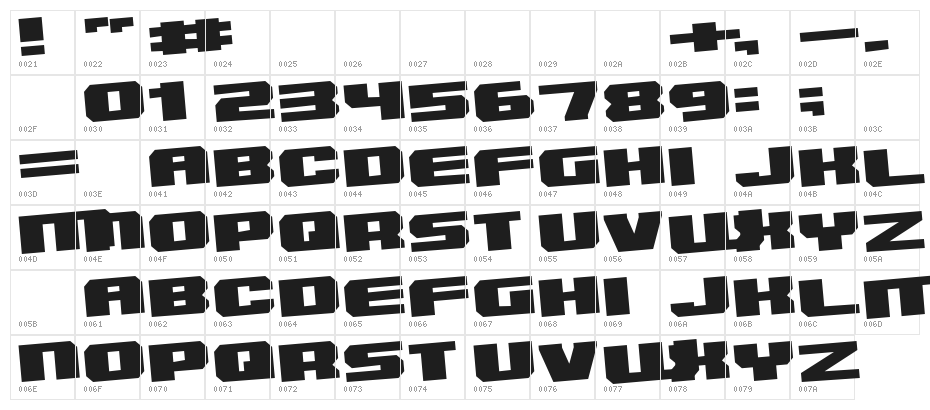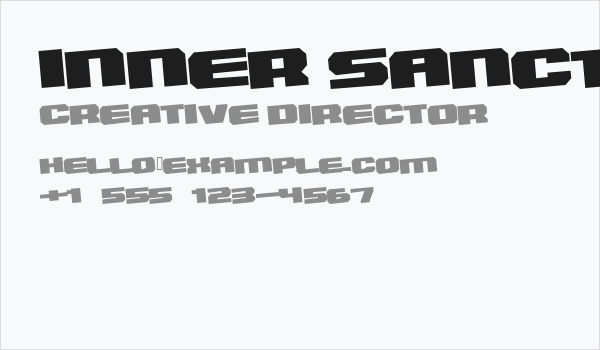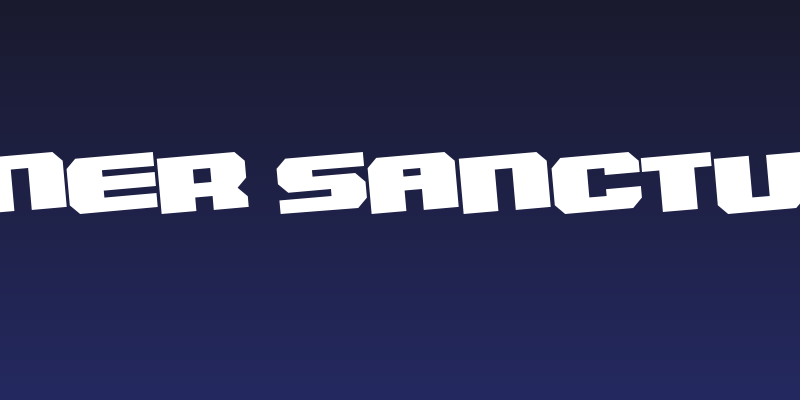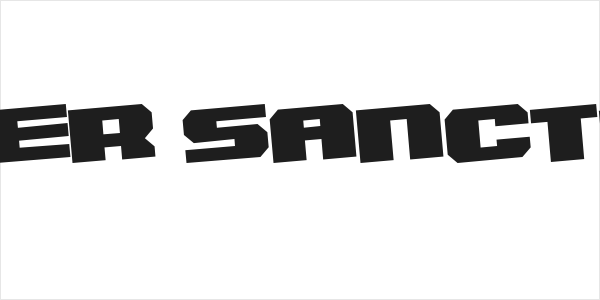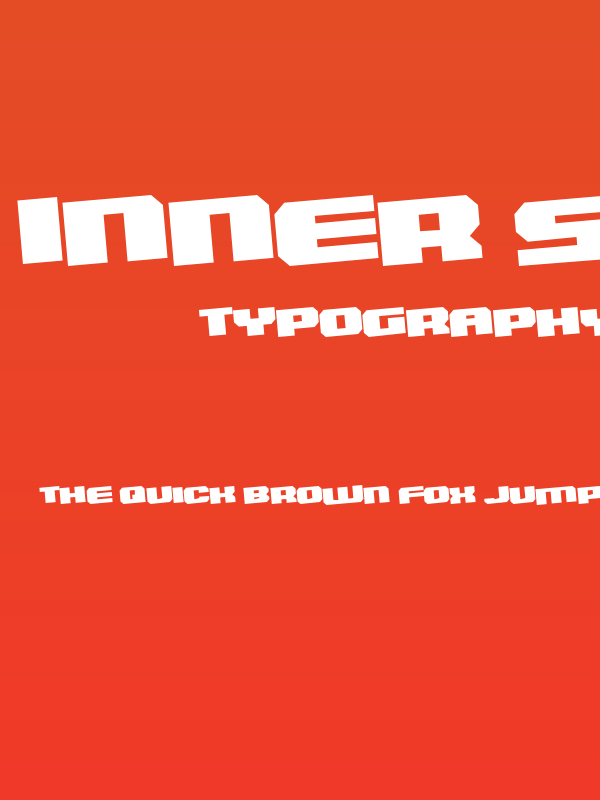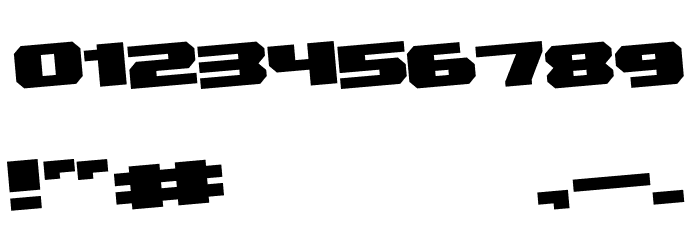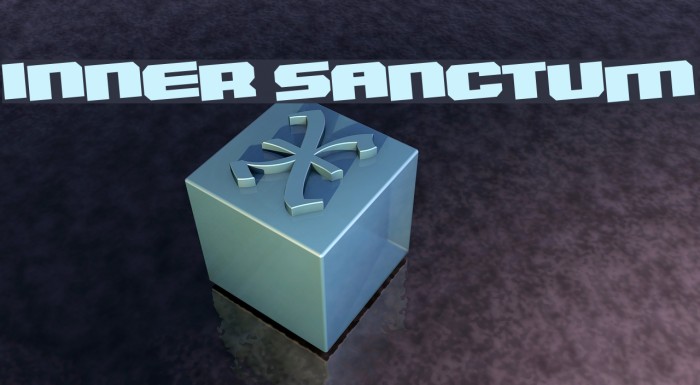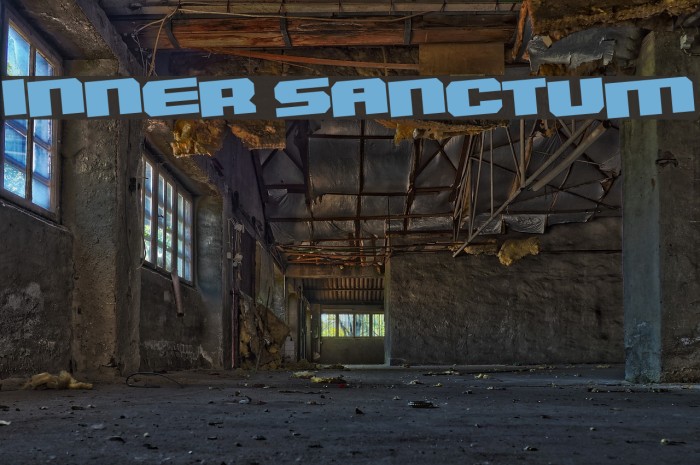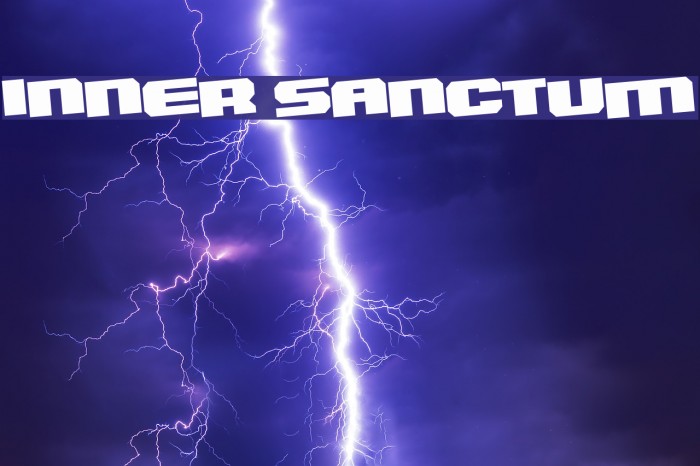
Inner Sanctum Font
This font features a bold and dynamic style with a strong geometric influence. Each character is constructed with sharp angles and thick strokes, creating a powerful and impactful appearance. The uppercase letters are particularly striking, with a blocky and robust design that commands attention. The lowercase letters maintain the same boldness, ensuring consistency throughout the typeface. Numbers and special characters are equally bold, making them suitable for various applications. The overall design is modern and edgy, perfect for projects that require a strong visual presence.
| Proposed Projects | This font is perfect for branding, posters, headlines, and any design that needs a strong, modern aesthetic. |